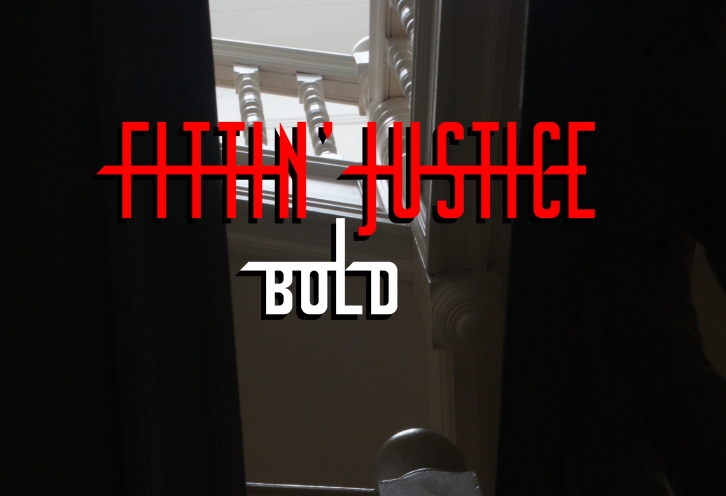
The gimmick: all the letters fit together through the middle. The 'lower-case' is small capitals. This comes with European accents and Greek letters, plus loads of alternates (I guess you'll have to buy it to see them all). I am still currently developing the regular version.